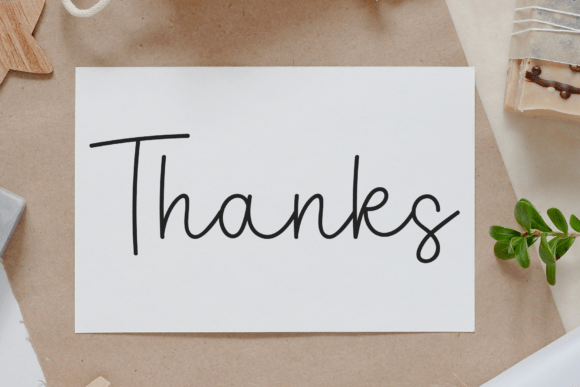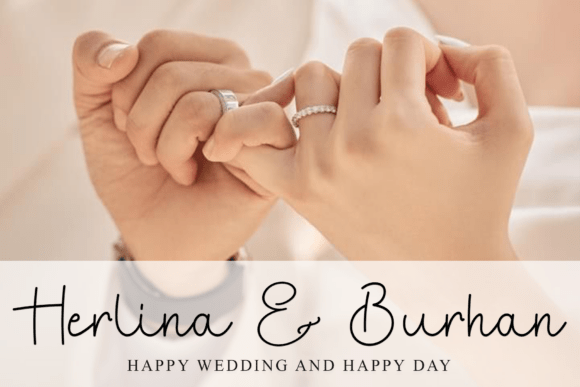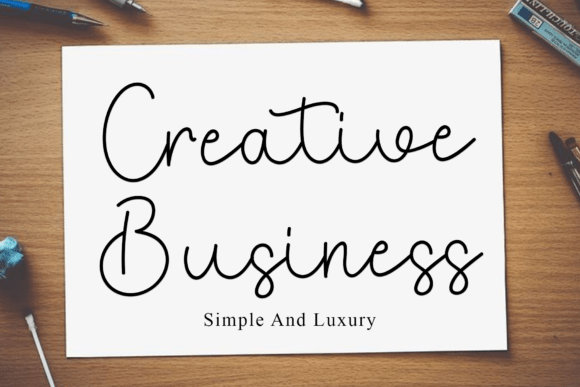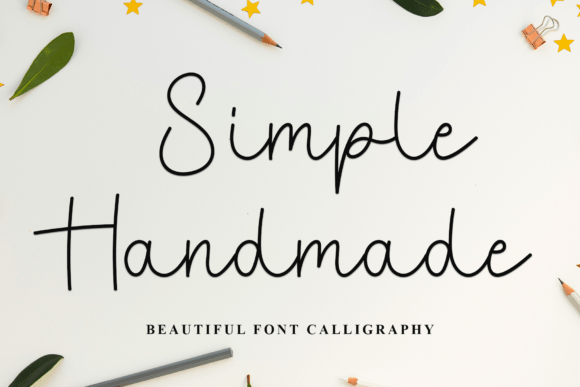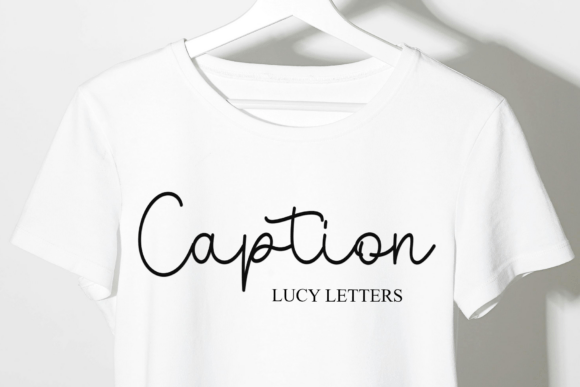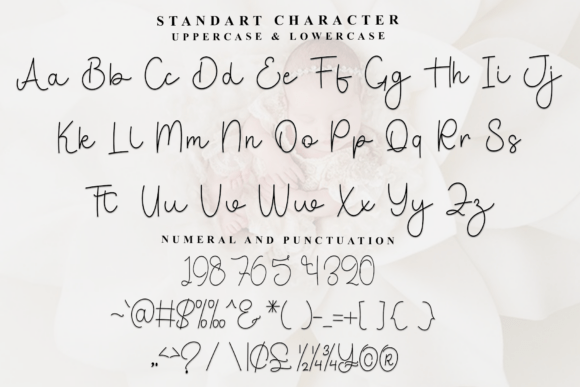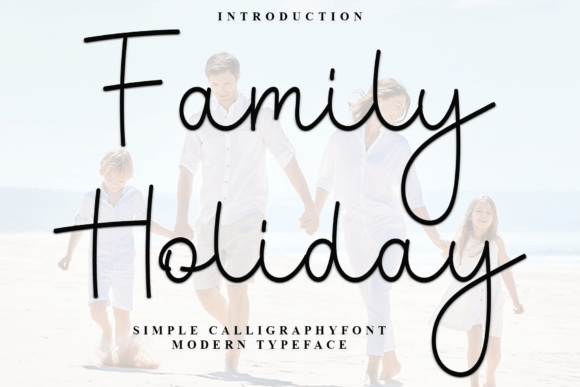
Introducing Family Holiday Font: The Perfect Addition to Your Design Collection
Are you tired of using the same old fonts in your designs? Do you want to add a touch of elegance and sophistication to your projects? Look no further than the Family Holiday font, a beautiful flowing handwritten font that is sure to take your designs to the next level.
What is Family Holiday Font?
Family Holiday is a stunning handwritten font that exudes an elegant touch, making it perfect for a wide range of projects. Its incredibly distinct and timeless style is sure to capture the attention of your audience and leave a lasting impression. Whether you’re a designer, crafter, or simply someone who loves to create, Family Holiday font is a must-have addition to your collection.
Key Features of Family Holiday Font
- Flowing Handwritten Style: Family Holiday font features a beautiful, flowing handwritten style that is both elegant and sophisticated.
- Elegant Touch: The font’s elegant touch makes it perfect for projects that require a high level of sophistication, such as wedding invitations, luxury branding, and high-end product design.
- Distinct and Timeless Style: The font’s incredibly distinct and timeless style ensures that your designs will stand out from the crowd and remain relevant for years to come.
- Versatile: Family Holiday font is versatile and can be used for a wide range of projects, from digital designs to print materials.
Family Holiday font is perfect for designers and crafters who want to add a touch of elegance and sophistication to their projects. Whether you’re creating wedding invitations, party decorations, or digital designs, this font is sure to impress. Its flowing handwritten style and elegant touch make it perfect for:
- Wedding Invitations: Create beautiful and elegant wedding invitations that will set the tone for the big day.
- Party Decorations: Add a touch of sophistication to your party decorations, including banners, garlands, and more.
- Digital Designs: Use Family Holiday font to create stunning digital designs, including social media graphics, blog posts, and more.
- Branding and Packaging: Create luxurious branding and packaging that will elevate your brand and make it stand out from the competition.
Why Choose Family Holiday Font?
There are many fonts to choose from, but Family Holiday font stands out from the rest. Here are just a few reasons why:
- Unique and Distinctive: Family Holiday font is incredibly unique and distinctive, ensuring that your designs will stand out from the crowd.
- Elegant and Sophisticated: The font’s elegant and sophisticated style makes it perfect for projects that require a high level of refinement.
- Easy to Read: Despite its elegant style, Family Holiday font is easy to read, making it perfect for body text and other applications where readability is key.
- High-Quality: Family Holiday font is a high-quality font that is designed to deliver exceptional results.
In conclusion, Family Holiday font is a stunning addition to any design collection. Its flowing handwritten style, elegant touch, and incredibly distinct and timeless style make it perfect for a wide range of projects. Whether you’re a designer, crafter, or simply someone who loves to create, Family Holiday font is a must-have font that is sure to elevate your designs and take them to the next level.